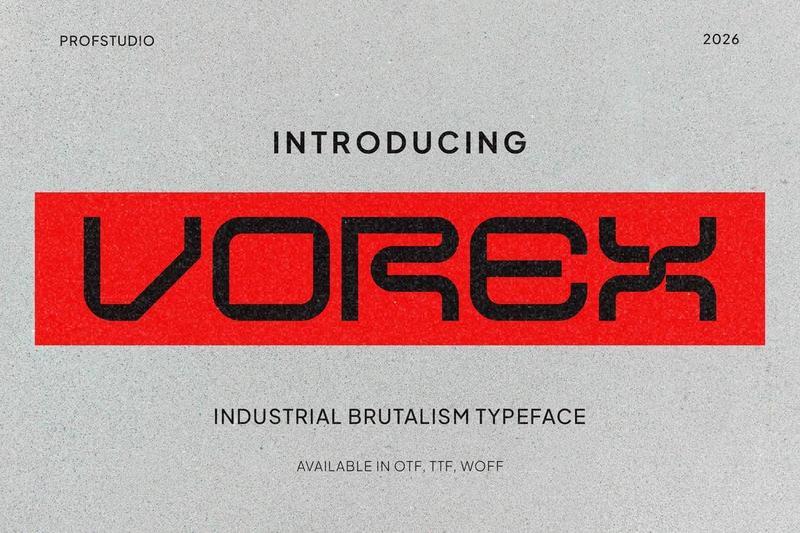
**Introducing**
Vorex – Industrial Brutalism Typeface
Vorex is a display font that can help display messages in the designs you create. With its modern and techno character will take your creativity to the next level, it is suitable for you to use on posters, flyers, magazine covers, books, vinyl, CDs, and many other media.